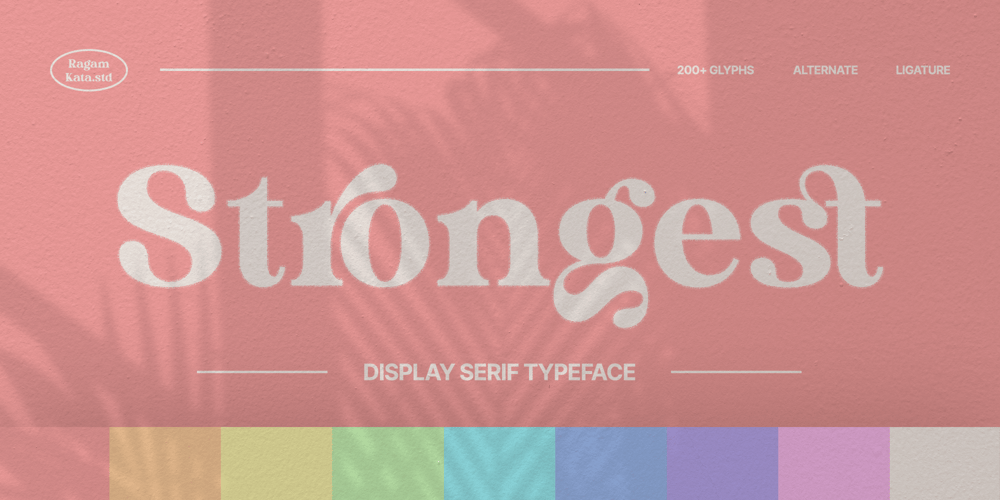
Strongest Font Family was designed by Yogiswhara Dio Prakoso Riadi and published by RagamKata. Strongest contains 1 styles and family package options. Strongest – Retro Serif FontIntroducing “Strongest ,” a cutting-edge font designed for the modern era. This retro serif display font brings a touch of nostalgia with a contemporary twist. Immerse your designs in a unique blend of classic and modern aesthetics, as Kangean offers a diverse range of alternates and ligatures that add character and charm to your projects. Elevate your creative endeavors with this stylish typeface, perfectly suited for those seeking a trendy and versatile font solution. Capture the essence of retro sophistication and make a statement with Strongest.Features :- Ligatures & Alternates- Letters, numbers, symbols, and punctuation- No special software is required to use this typeface even work in Canva- Multilingual SupportPlease contact us if you have any questions. Enjoy crafting and thanks for supporting us!